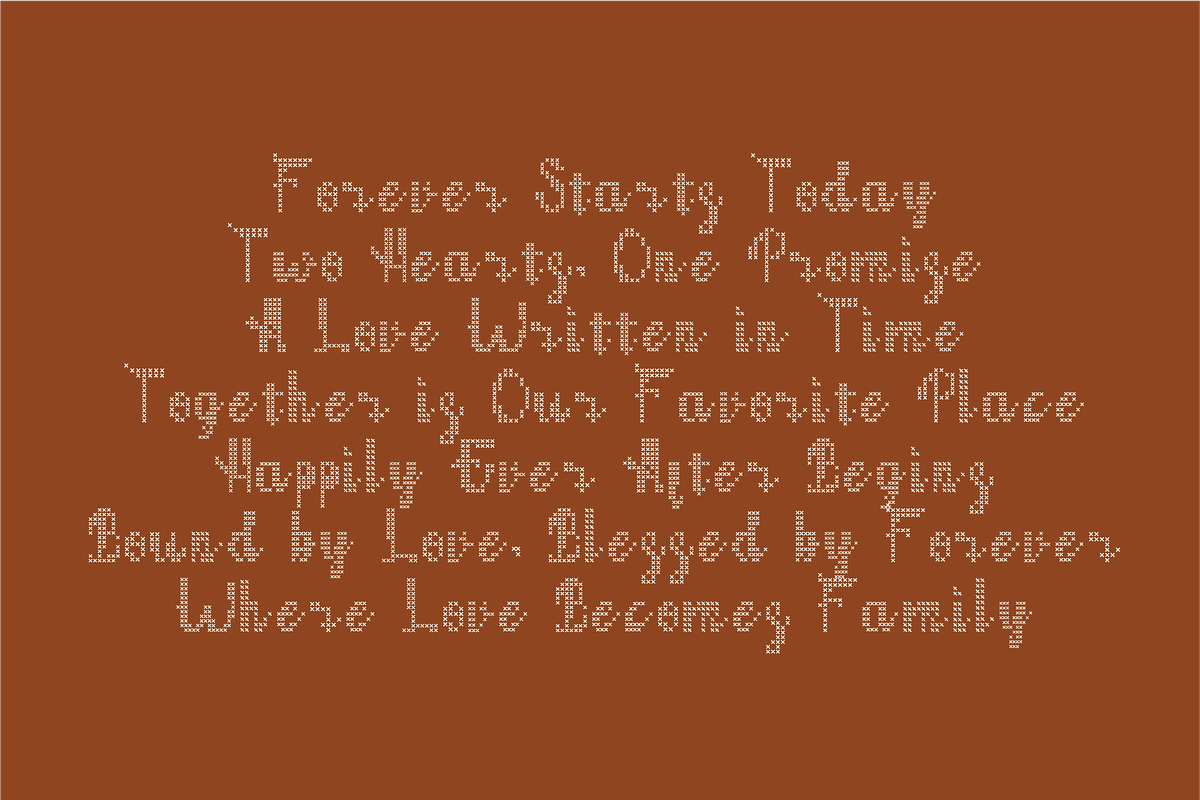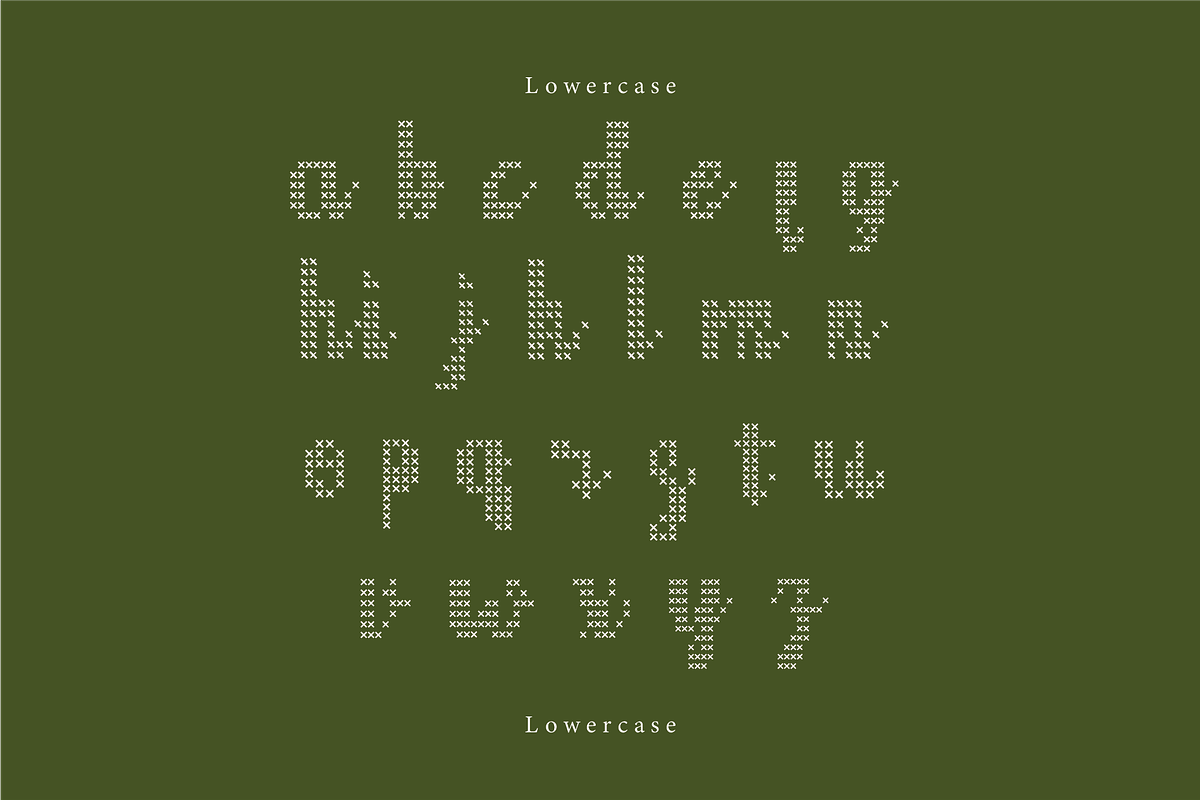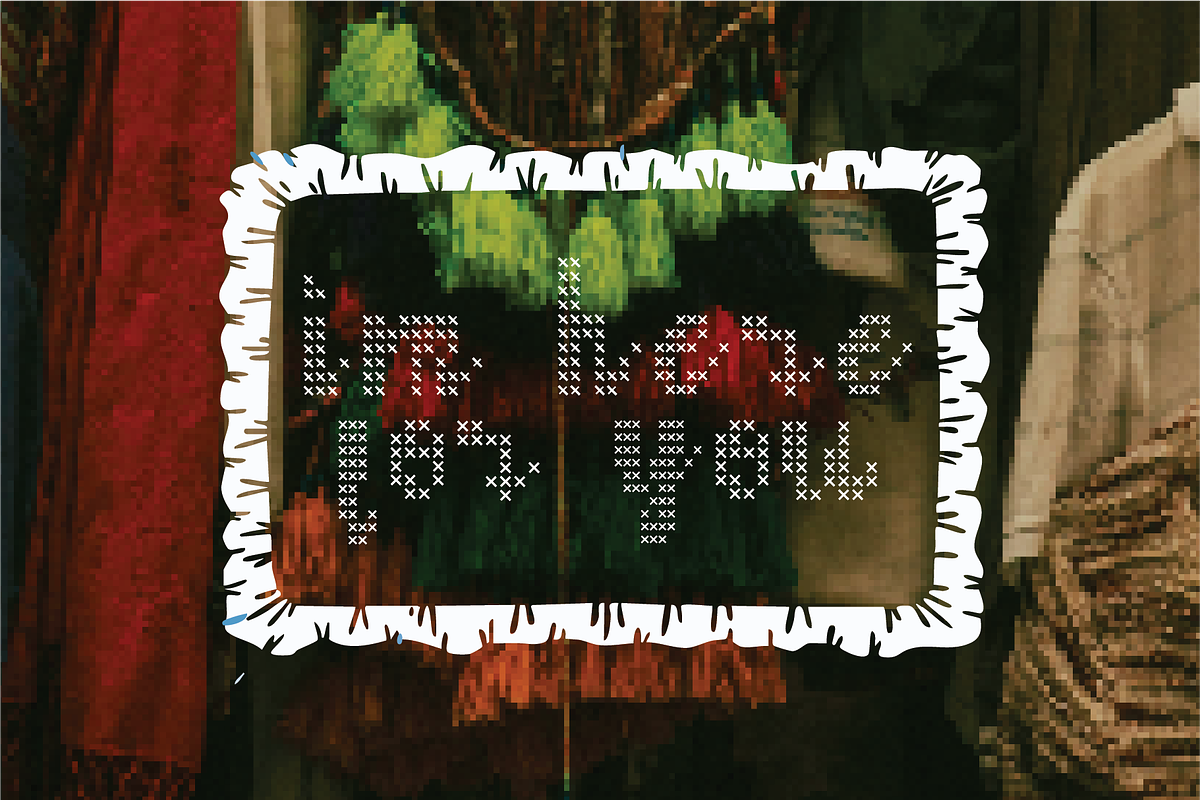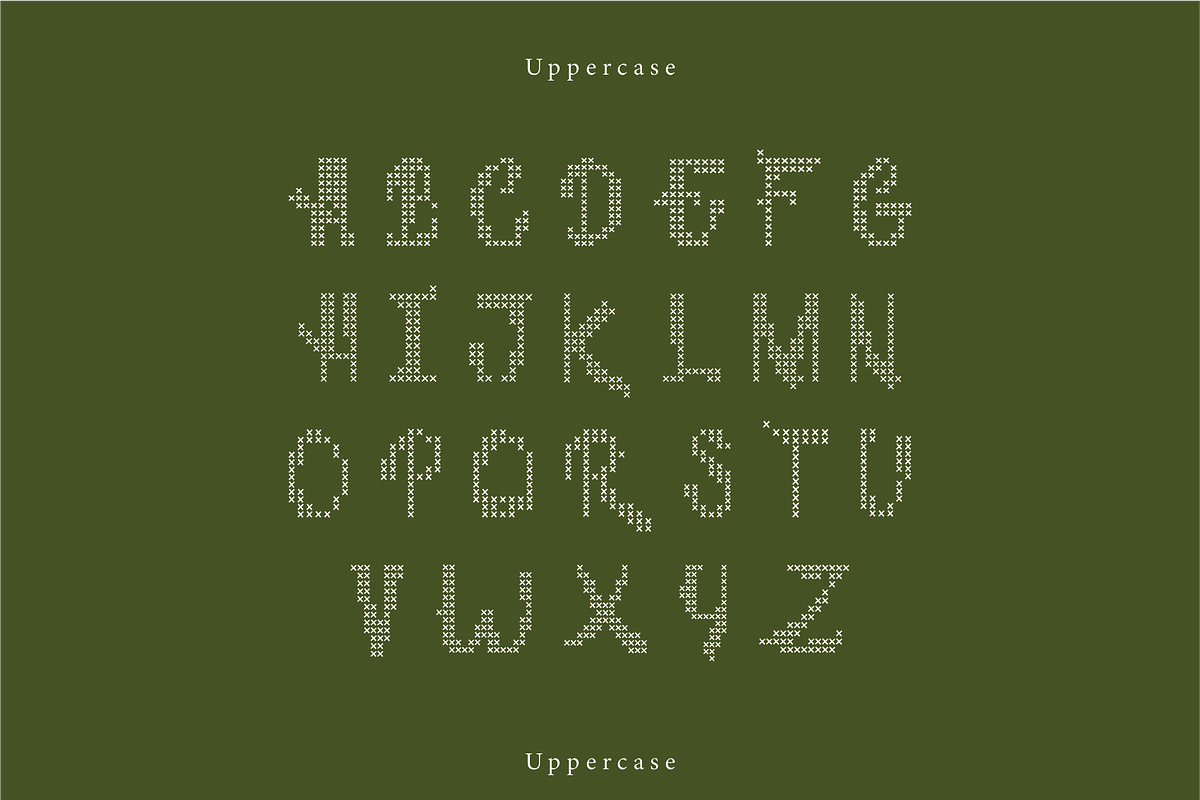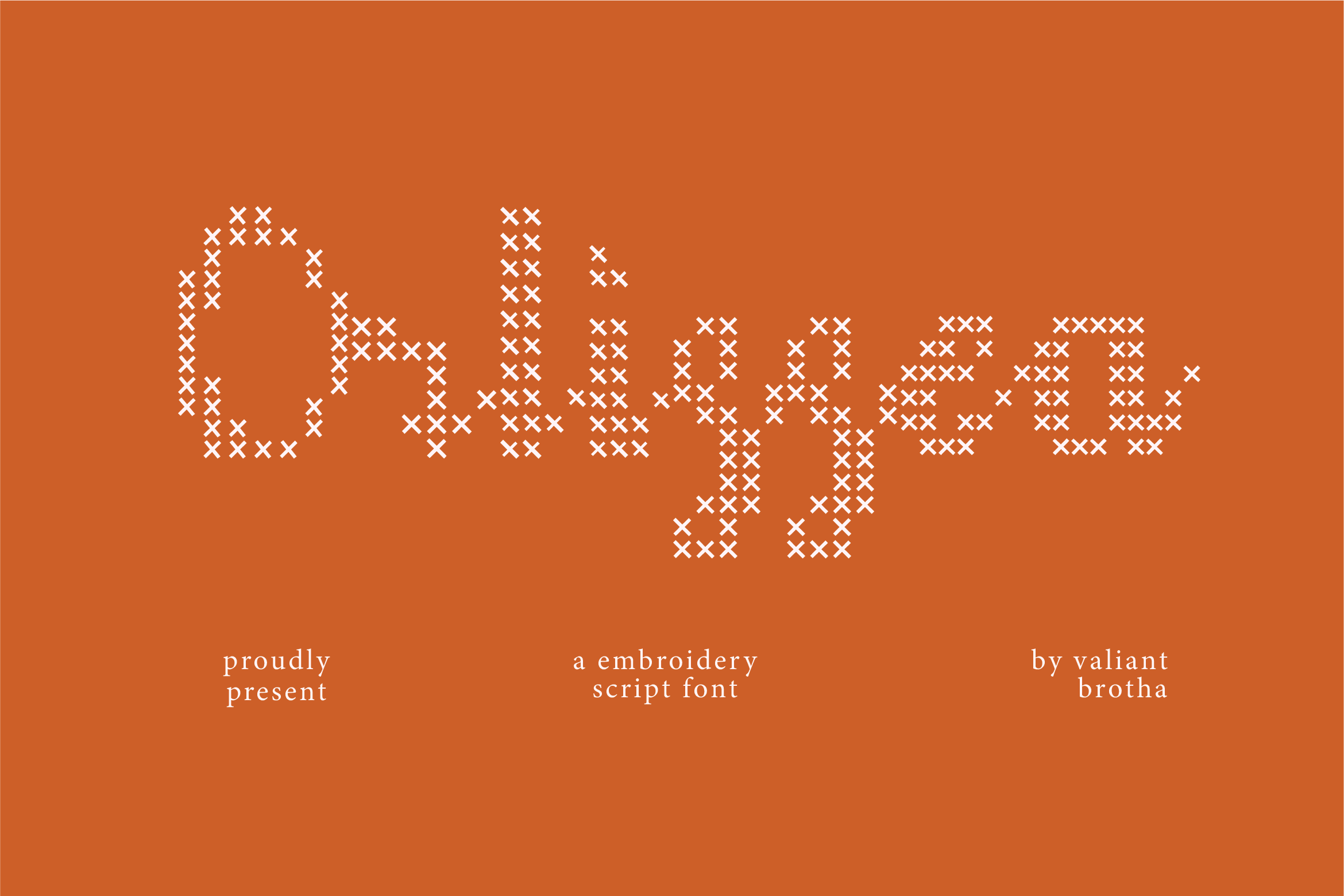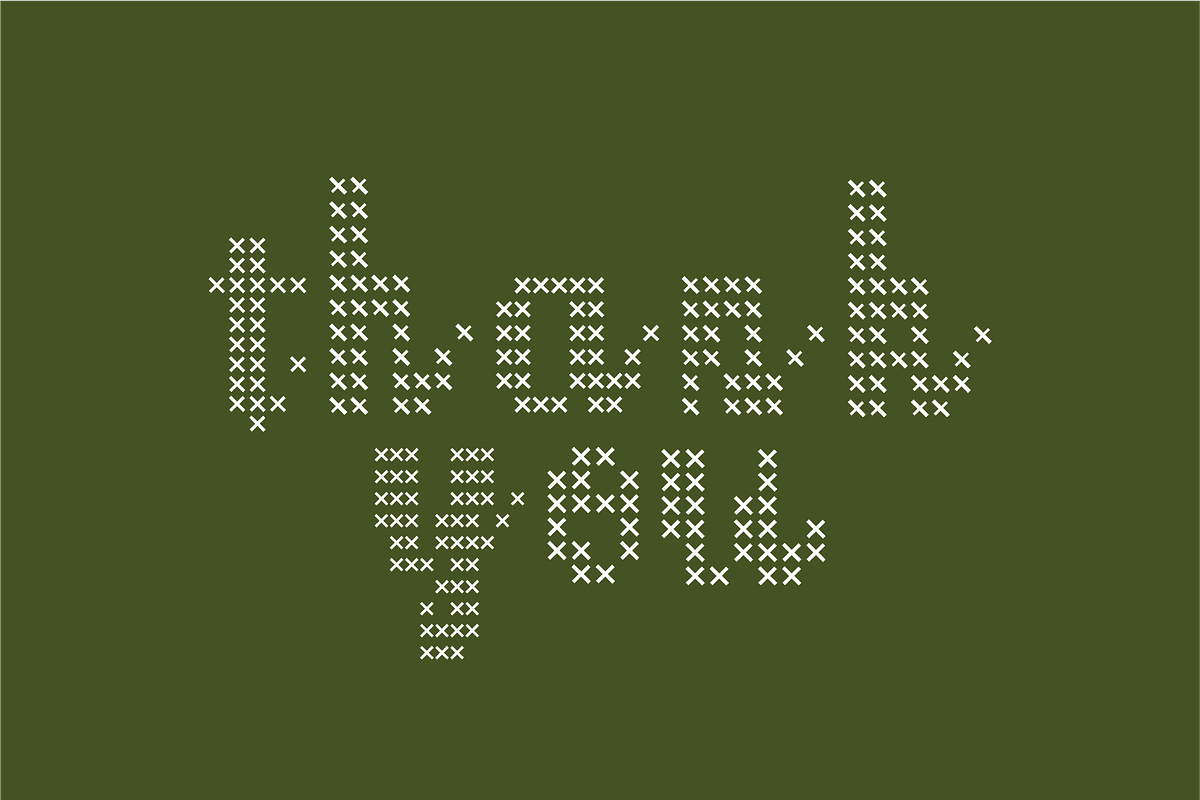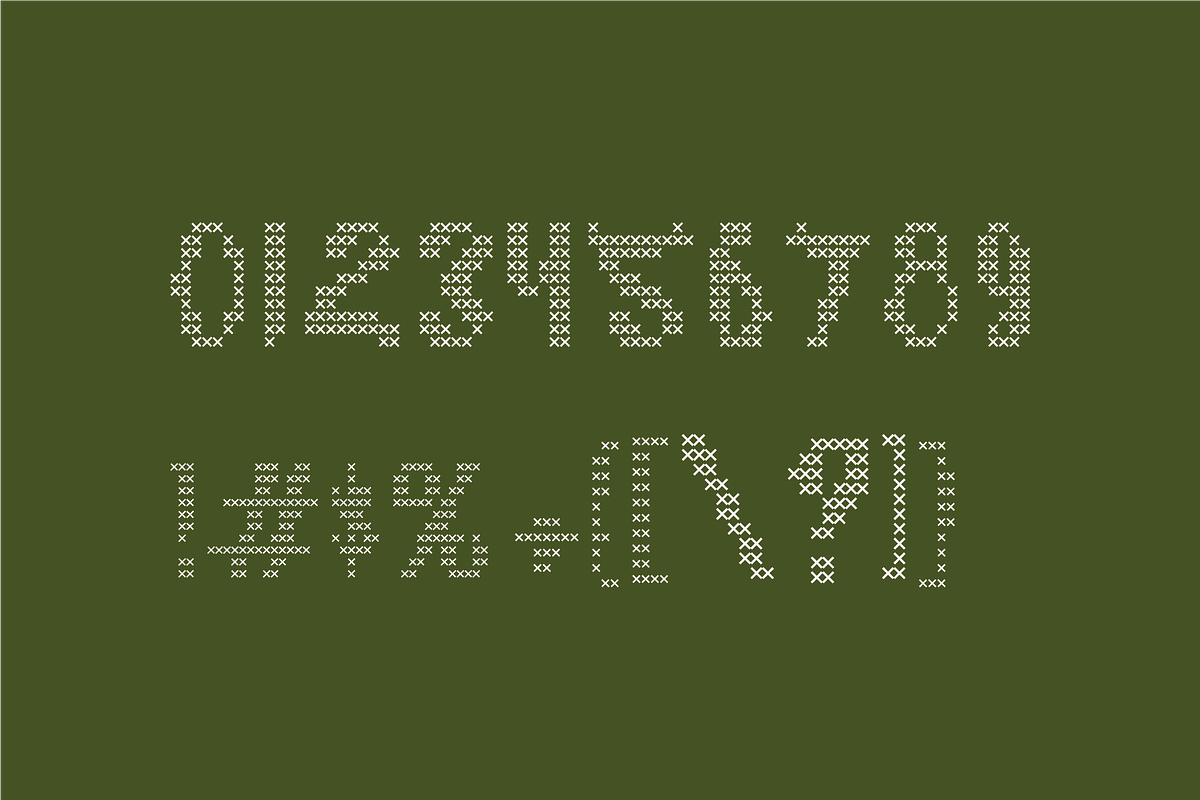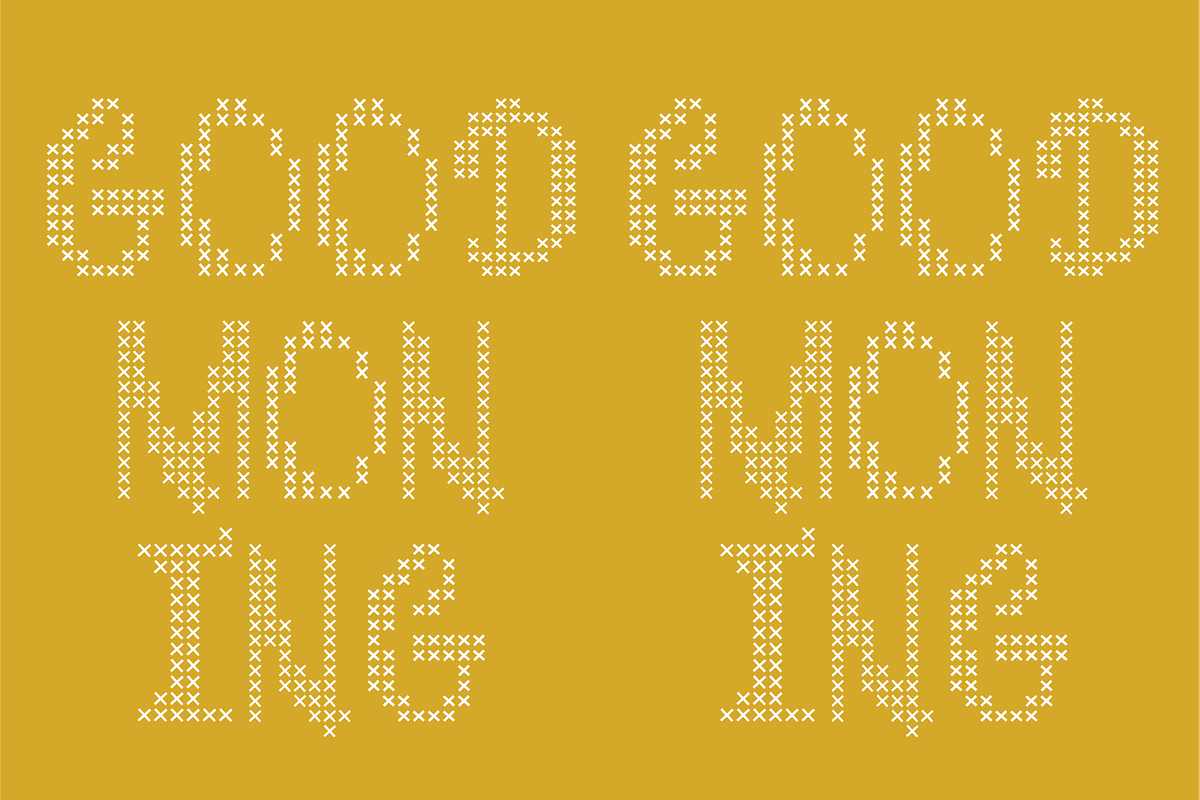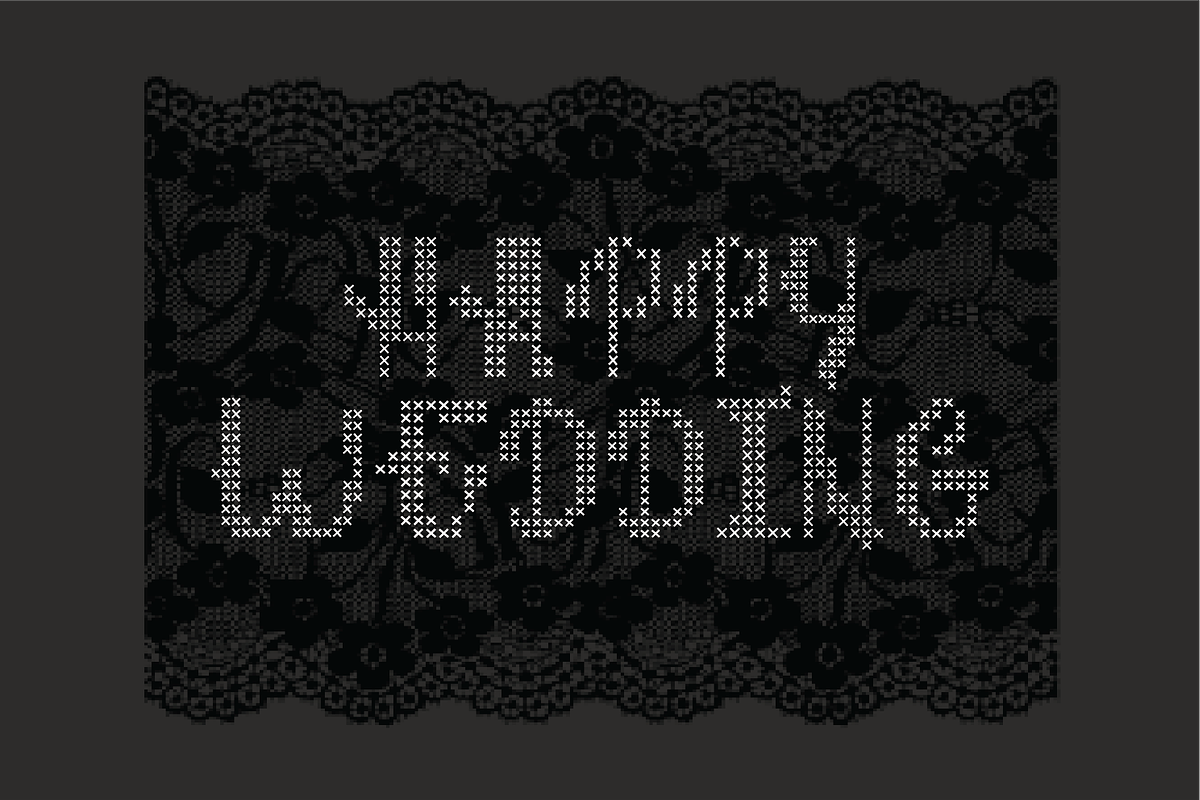
Orlissea | A Embroidery Script Font
Orlissea is a charming embroidery script font that combines playful handwritten curves with detailed cross-stitch construction.
Numbers, marks and symbols